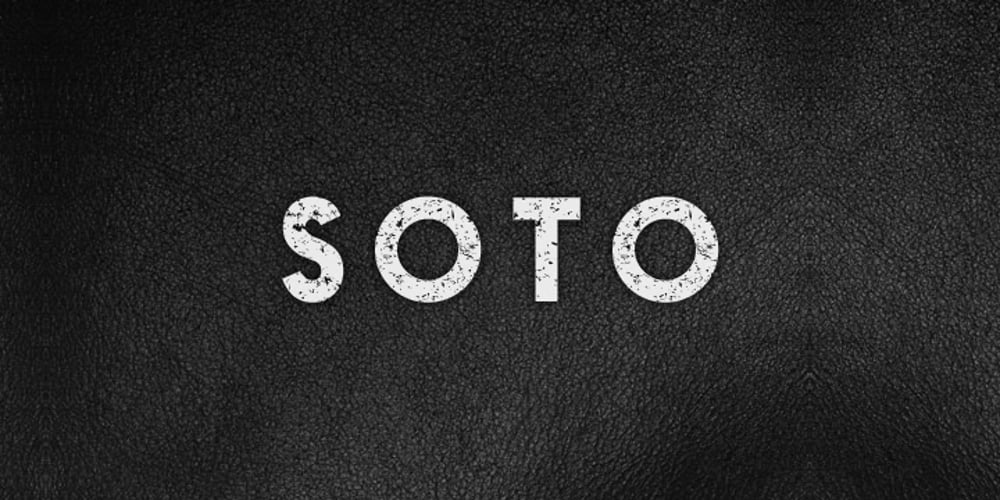
Soto
Soto font
Soto Font Family was designed by Alex Haigh and published by HyperFluro. Soto contains 1 styles and family package options. A grungy, blocky, sans-serif font, Soto has one goal: get the message across. Saying it plain and simple, in a way that no-one can misunderstand, Soto’s very slight angles and thick style carry a weight and impact that make it stand out. With the textured finish it even jumps out from the backgrounds it’s placed on, so you can make use of the contrast to draw people in. Soto is best used in headlines and announcements that want to get their message across in an interesting and quick way. Stand out from the crowd and make people want to read what you’re writing by using a font like Soho to shout it out. If you like Soto but you’re not feeling the grunge texture, then check out Ebisu.